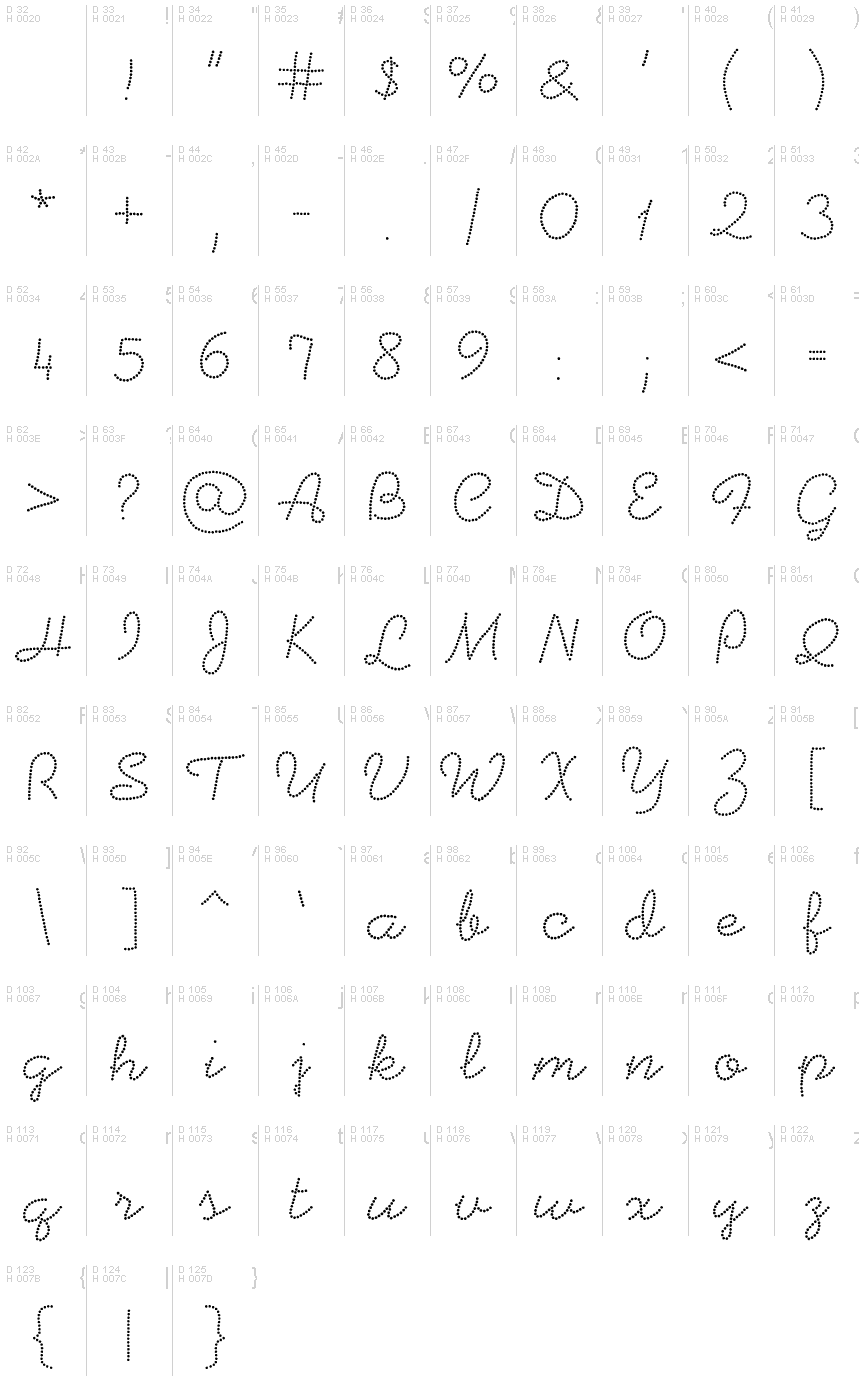
Beadwork
Beadwork, the latest display font designed by Digital Typeface Studio, is an ideal choice for all your decorative needs. Its light weight and dotted style add a touch of playfulness to any project. Use it for posters, flyers, social media posts, or even on websites to make your content stand out. The unique design of Beadwork makes it perfect for crafting logos or branding materials that need a creative touch. This semi-bold font typeface with its decorative characteristics is sure to make an impression! Try using Beadwork today and add a little sparkle to your designs!